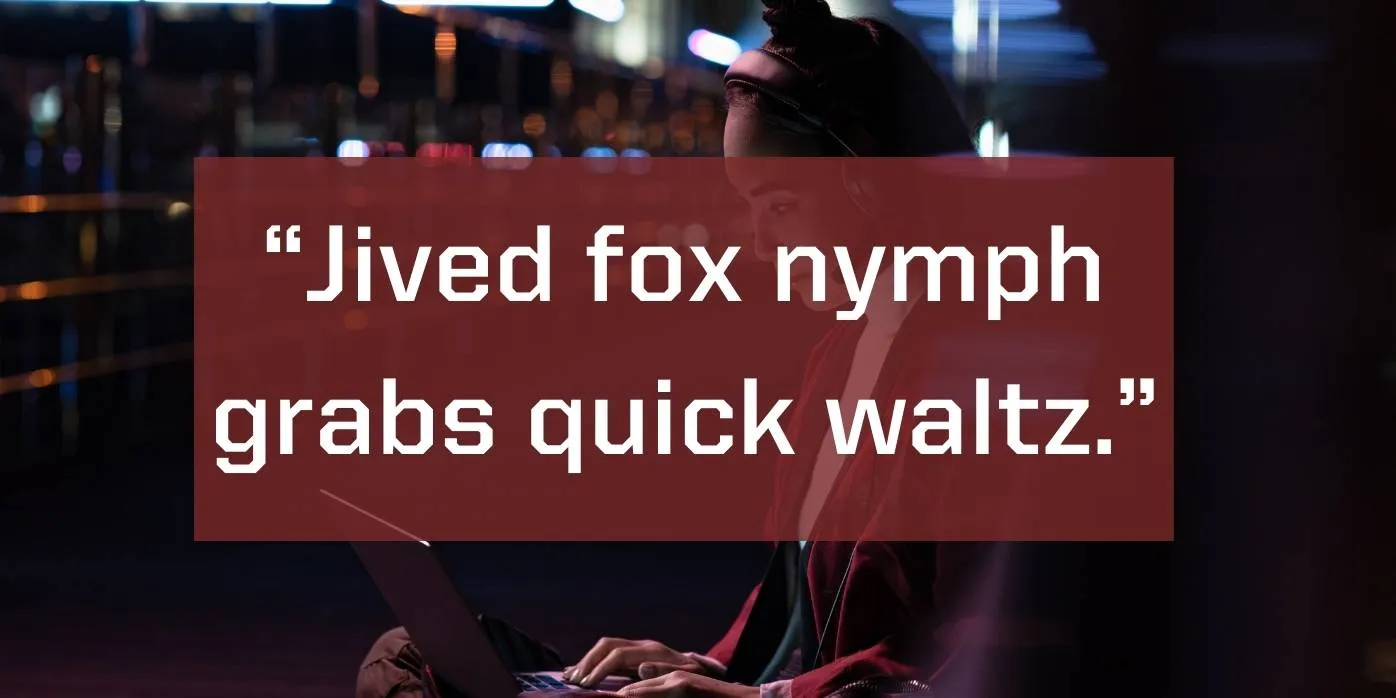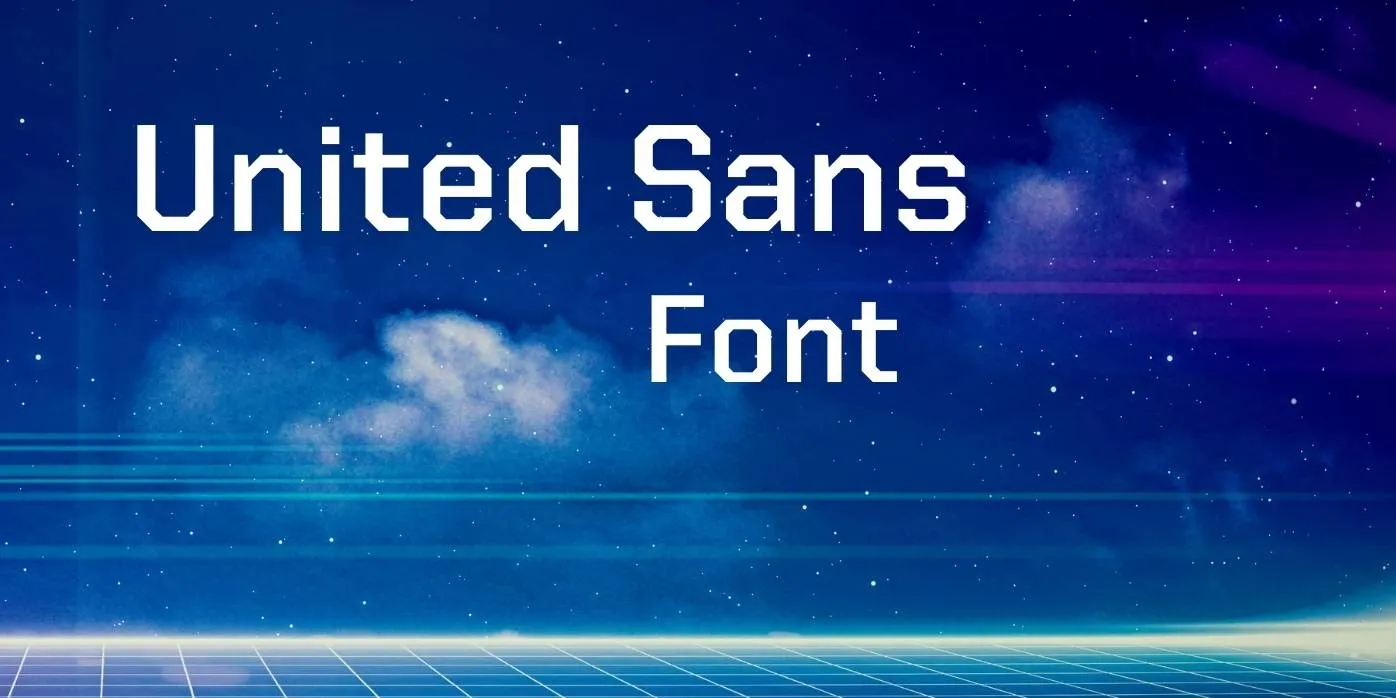
United Sans Font
We are going to present a modern typeface named United Sans Font. This charming font to Sans-Serif typeface. This font was designed by Tal Leming. This tremendous typeface comes in 35 famous styles and also includes seven classic weights that are light, book, normal, medium, demi, bold and black.
This stylish Font has a very modern and distinctive look. This typeface was designed to be versatile, so it can be used in a wide range of applications. United Sans Font is perfect for headlines. Its copy and paste function is very suitable for different text and graphics designs.